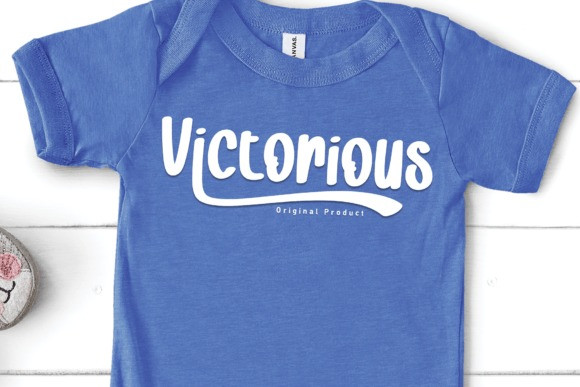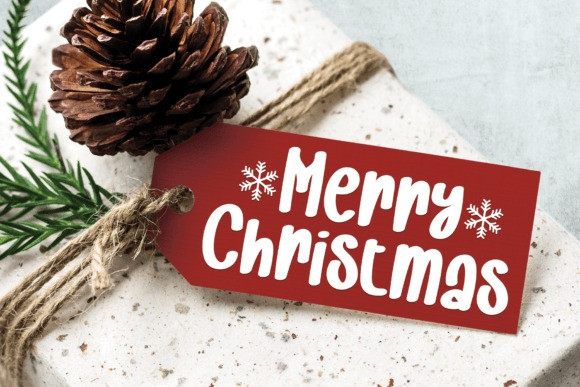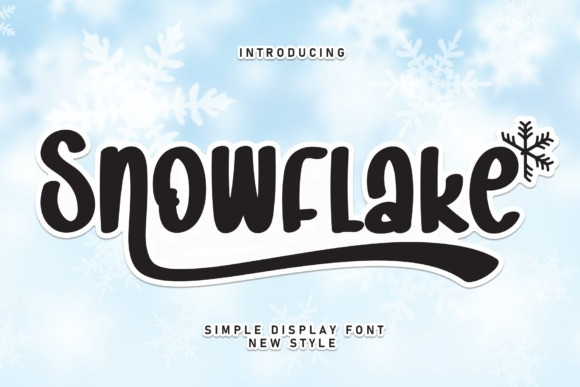
Snowflake – Simple Display Font
Snowflake – Simple Display Font is a sweet and friendly handwritten font. Its natural and unique style makes it incredibly fitting to a large pool of designs. The only limit is your imagination!